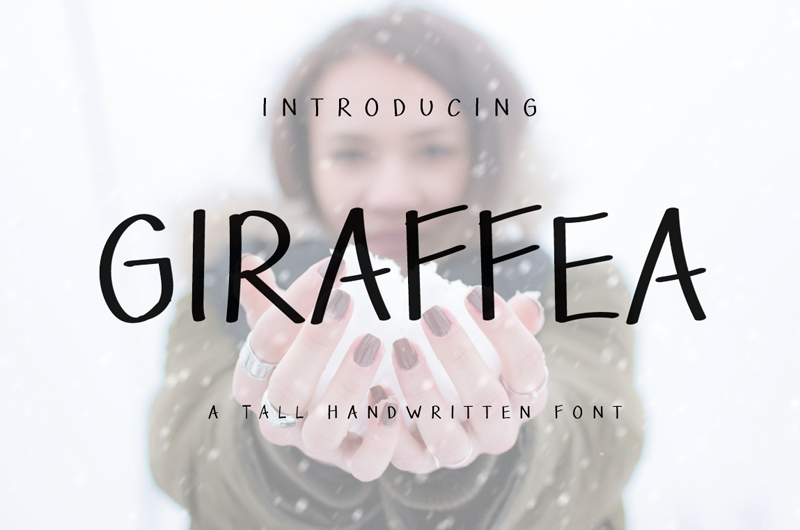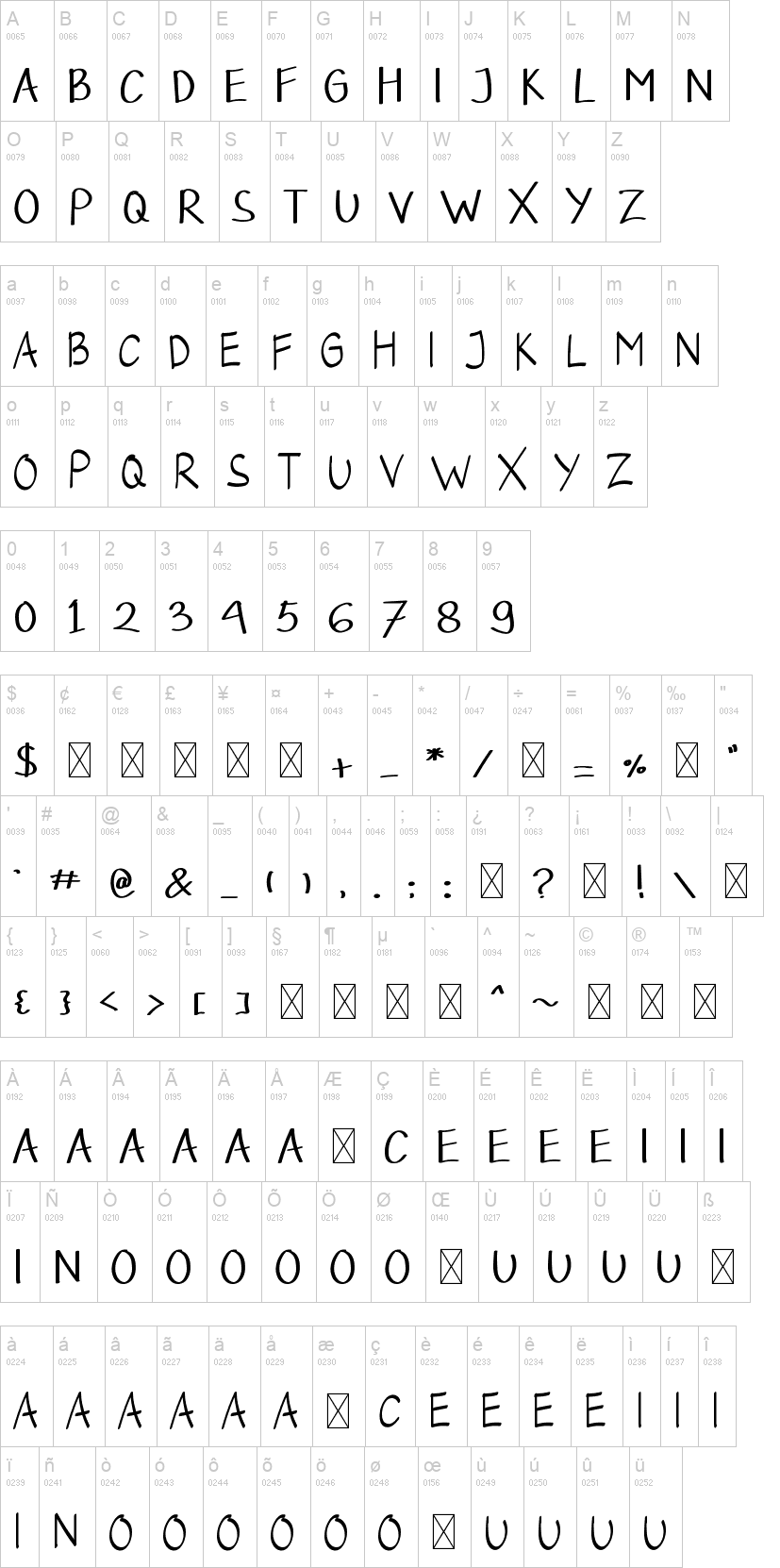
Note of the authorGiraffea is a cool, all caps handwritten font featuring the perfect amount of trendiness. Whether youre using it for crafting, digital designing, presentations or greeting cards making, its perfect!